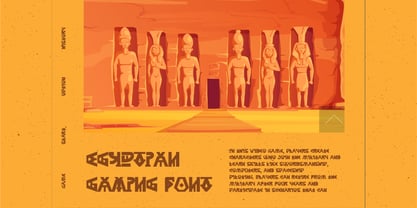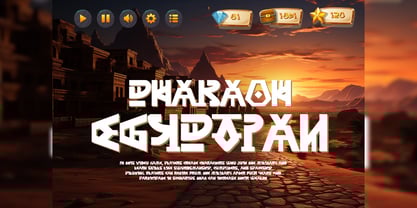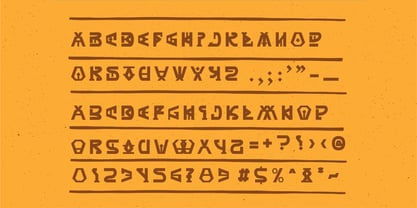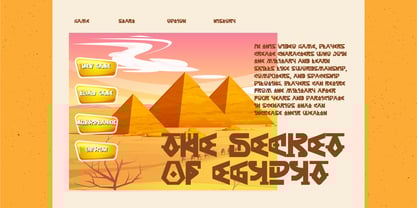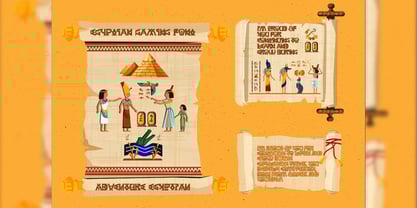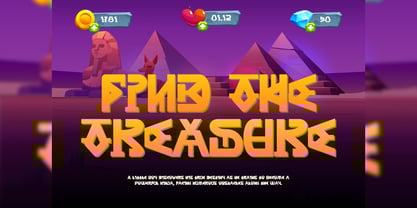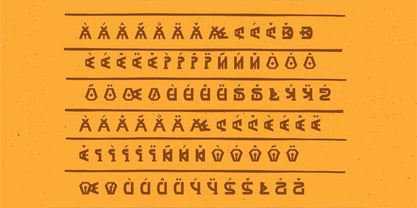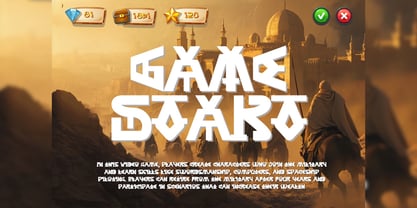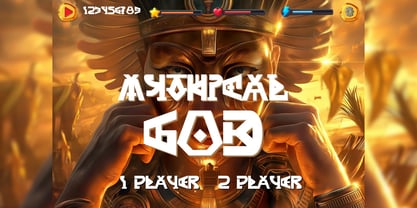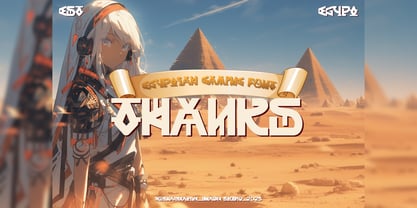
Axubies
Introducing Axubies – Egyptian Gaming Font
Axubies – Egyptian isn’t just a font it’s a portal to a world of ancient wonder. It’s your key to crafting designs that transport viewers to the heart of Egypt’s storied past, where the sands whisper secrets and hieroglyphs tell tales. Elevate your projects, captivate your audience, and embrace Axubies – Egyptian Font that’s rewriting the rules of design history.
FEATURES
– Uppercase and Lowercase letters
– Numbering and Punctuations
– Multilingual Supports